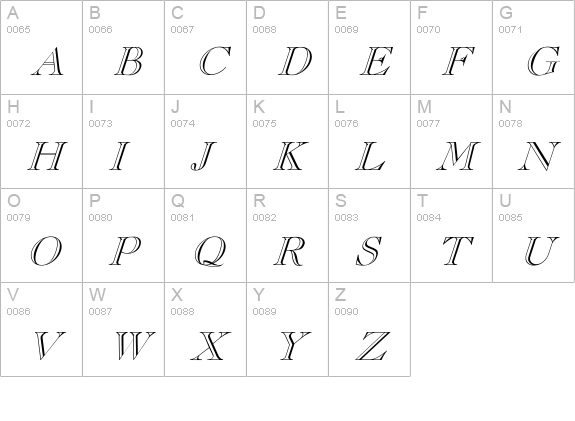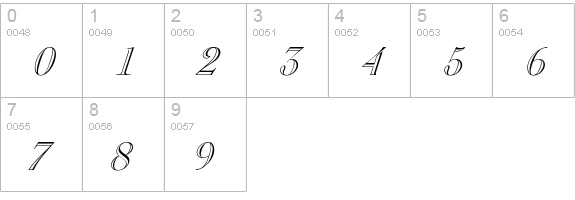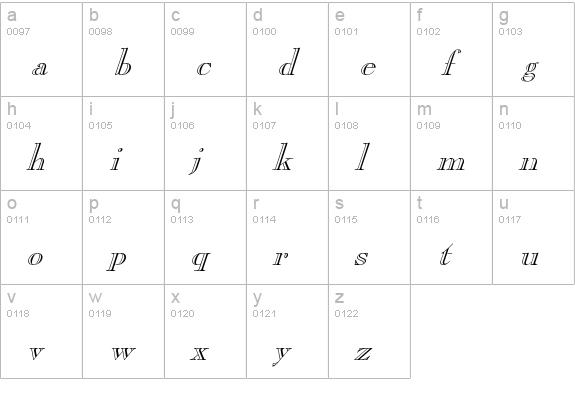
Pinchi-Italic Font Details
Pinchi-Italic is a distinctive, italic variant in the Pinchi typeface family \xE2\x80\x94 well suited to design and typography projects.
Pinchi-Italic is a sleek and stylish font that exudes elegance and sophistication. Its slanted and graceful letterforms are perfect for adding a touch of refinement to any project. The delicate curves and sharp angles of Pinchi-Italic create a sense of fluidity and movement, making it an ideal choice for logos, headlines, and branding materials. This versatile font is remarkably legible, even at smaller sizes, ensuring that your message is always clear and impactful. Whether you're designing a wedding invitation, a magazine layout, or a website, Pinchi-Italic will add a touch of class and professionalism. The best part? Pinchi-Italic is completely free! It is freely available to download at FontsMarket.com, where you can easily access this stunning font and incorporate it into your creative projects. With Pinchi-Italic, you can elevate your designs without breaking the bank. Experience the beauty and versatility of Pinchi-Italic today. Download it for free at FontsMarket.com and unlock a world of possibilities for your design projects.